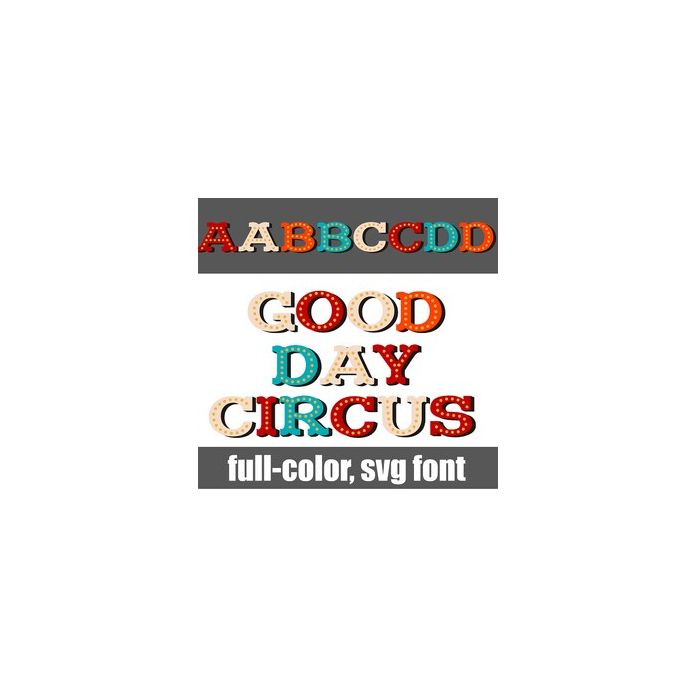
This full-color font features a serif font with marquee lights for a circus style alphabet. There is an alt case w/ additional colors you can access through your system or Silhouette's glyph map.